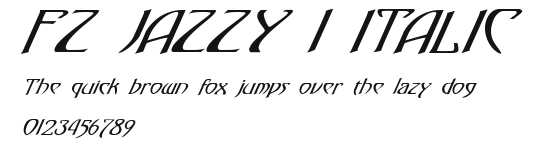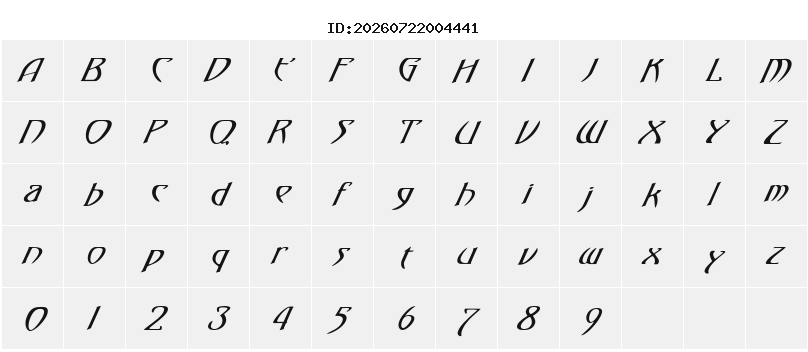
About FZ JAZZY 1 ITALIC.ttf
FZ JAZZY 1 ITALIC.ttf is a modern, elegant sans-serif font designed for ultimate readability and visual harmony. Perfect for branding, headlines, web design, and print materials.